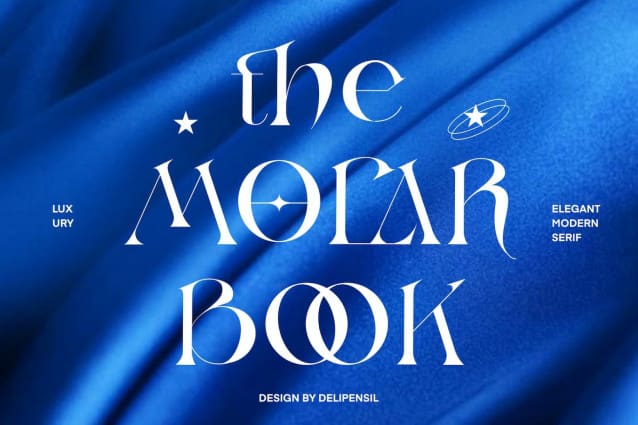
Molar Book Font
Molar Book Font is a stylish typeface that we have for you. MOLAR has many dictionary ligatures to support your title, your brand style, your luxury product, we combine this font with a modern look, and you can use any size for this font
MOLAR is the best font to suit your website typography, magazine title, and to make everything look stunning with another you can put everything in it